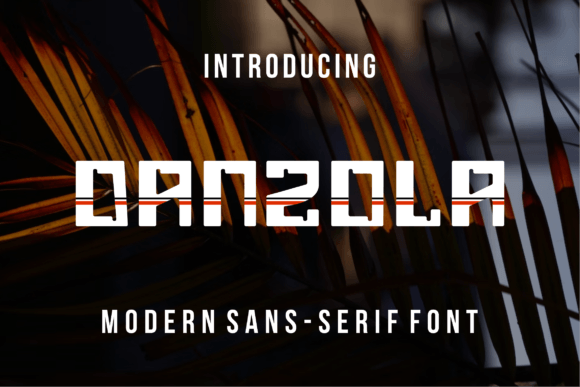
Journey into the realm of captivating typography with Danzola Font, a modern sans serif that exudes charm and boldness. Its elegant curves and crisp lines dance together, creating a visual symphony that will elevate your designs to new heights. Danzola is the epitome of versatility, seamlessly adapting to a myriad of creative endeavors.
Picture your designs adorned with Danzola's timeless beauty. Its clean and legible letterforms make it the perfect choice for crafting captivating headlines, eye-catching posters, and unforgettable logos. Let Danzola's enchanting presence add a touch of sophistication to your wedding invitations, stationery, and social media graphics.
Unleash your creativity with Danzola's boundless potential. Transform your typography quotes into works of art, captivating your audience with every stroke. Elevate the covers of your magazines, books, and websites with Danzola's timeless elegance, leaving a lasting impression on your readers.
Immerse yourself in a world of boundless possibilities with Danzola Font. Whether you're designing clothing, branding, packaging, or any other creative pursuit, Danzola will effortlessly elevate your work, making it stand out from the crowd. Its versatility knows no bounds, allowing you to weave your creative magic across a spectrum of mediums.